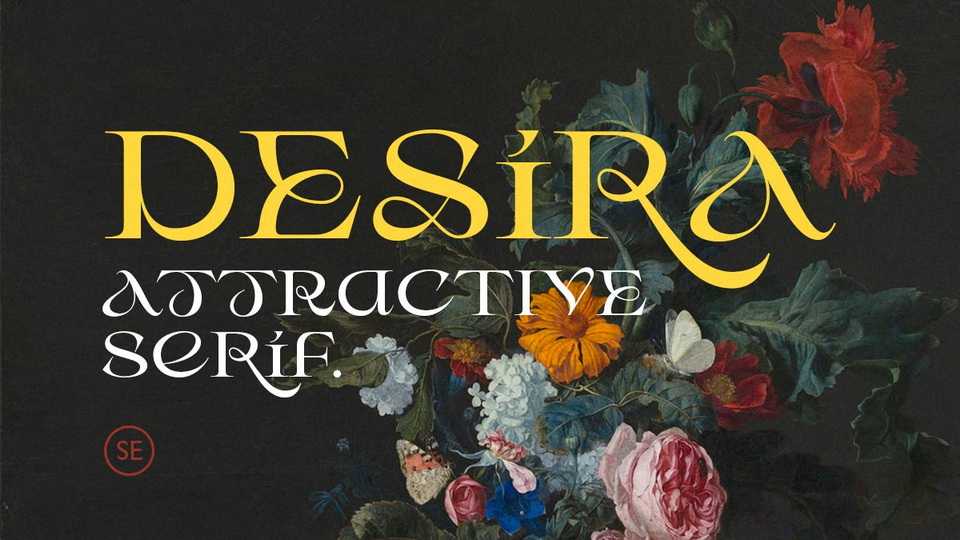
Download Desira font, an attractive and modern serif typeface that comes with a stylish shape. With unique look, Desira font will make your presentation, poster, or logo even more stunning and stand out.